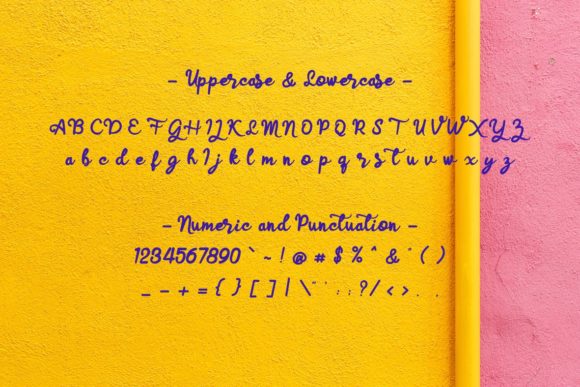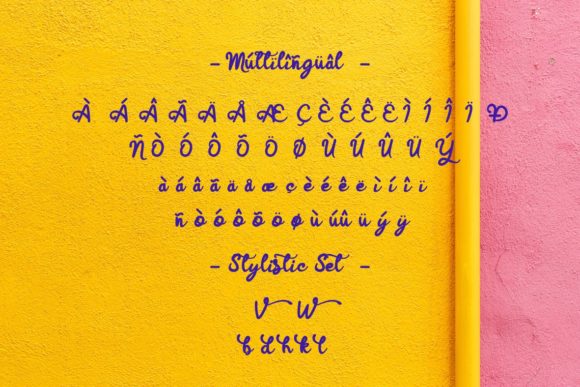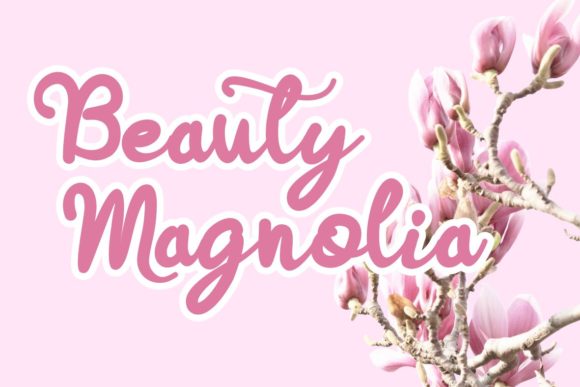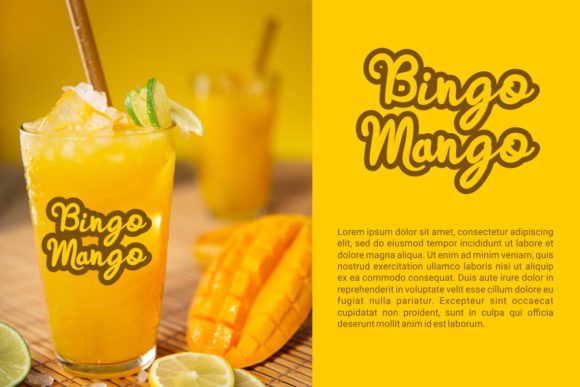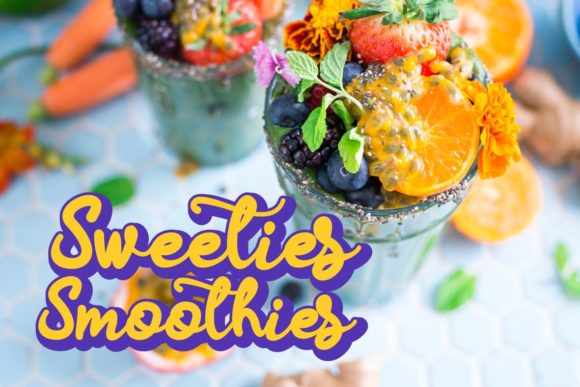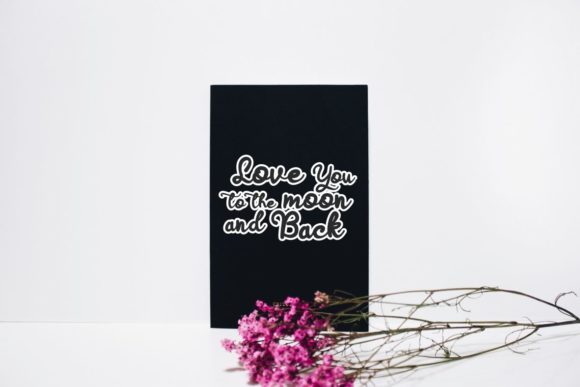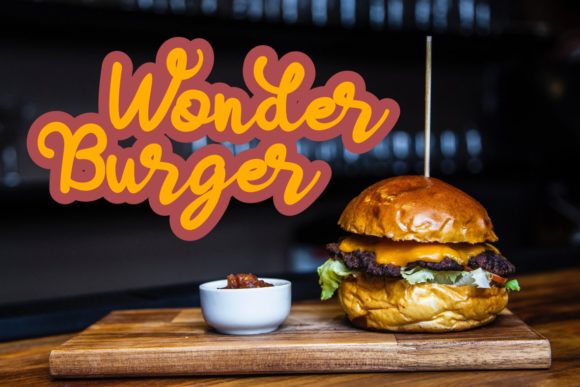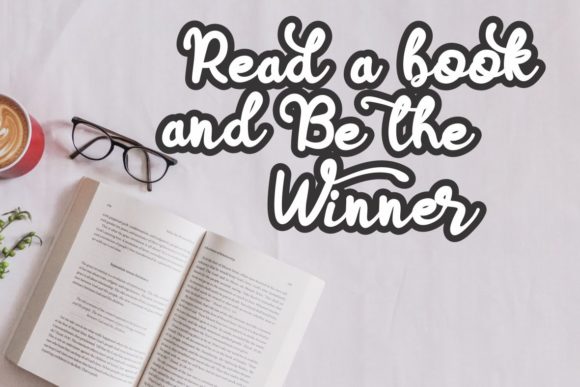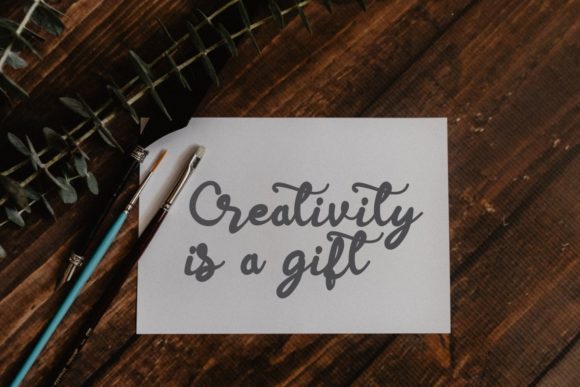
Wonderland Font
About Wonderland Font
Wonderland is a sweet and friendly handwritten font. It will elevate a wide range of design projects to the highest level, be it branding, headings, wedding designs, invitations, signatures, logos, labels, and much more!